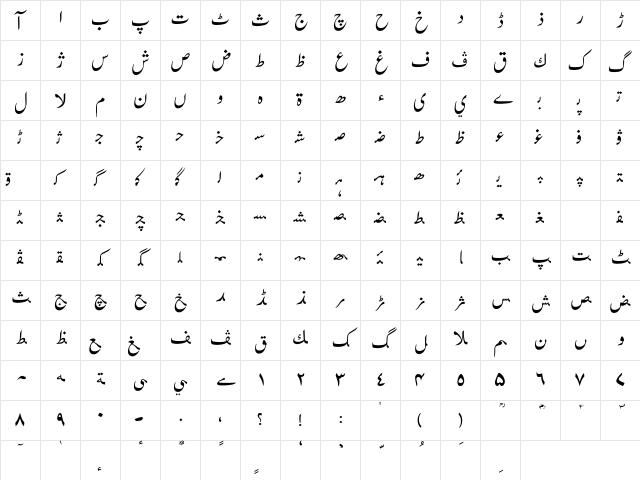
Complete Urdu Naqsh (Nastalique) Naqsh glyph index. Displaying only characters natively supported by Urdu Naqsh (Nastalique) Naqsh font.
Urdu Naqsh (Nastalique) is a composed and adaptable typeface that performs quietly and consistently across a wide range of design contexts.